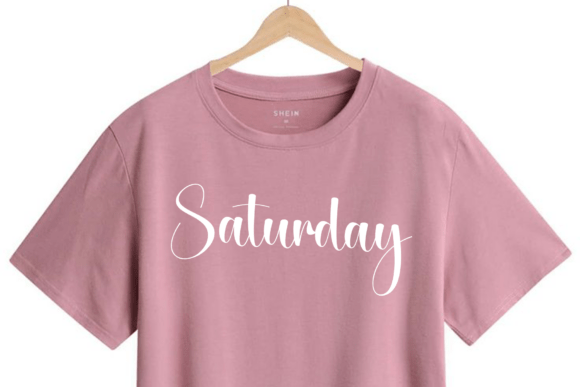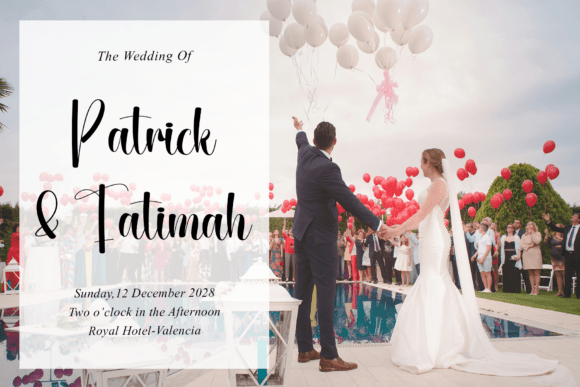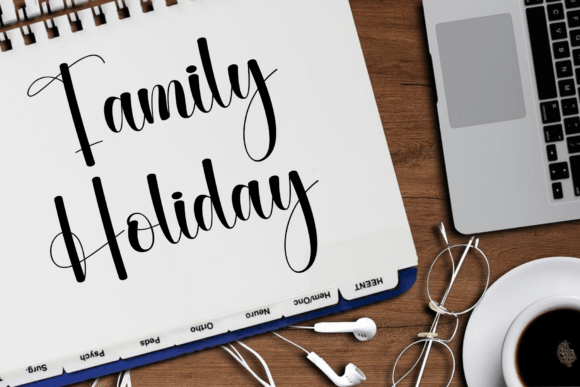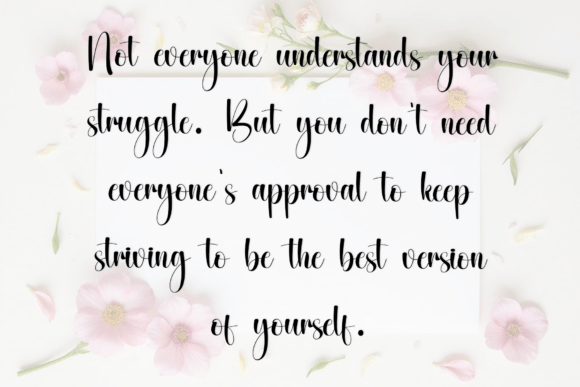
Unleashing the Art of Modern Elegance
As a designer, there’s nothing quite like the thrill of bringing a concept to life. It’s the moment when words and ideas transform into a visual masterpiece that captures the essence of your vision. For me, that moment often starts with the perfect font – one that elevates the entire design and leaves a lasting impression. And that’s exactly what Brilliant Calligraph Font is designed to do.
This stunning “new style” handwritten script font is more than just a font – it’s an experience. With its fluid, signature-like motion and delicate balance of tall ascenders and sweeping loops, it creates a sophisticated visual flow that’s perfect for luxury branding, signature logos, and high-end editorial content. Whether you’re crafting a wedding invitation or a high-end brochure, Brilliant Calligraph Font brings an unmistakable touch of class to every word.
Brilliant Calligraph Font Key Features
- Font Family: Brilliant Calligraph
- Unique Characteristics: Elegant and refined calligraphic script, suitable for formal and decorative purposes, featuring subtle flair and connection between letters
Brilliant Calligraph Font Review
Overall, I think the Brilliant Calligraph Font is a solid choice for designers looking to add some flair to their projects. Here are some of the things that work well: ✨
- Beautiful, flowing script lines that evoke a sense of elegance and sophistication.
- Highly customizable with a range of options for adjusting font sizes, line widths, and spacing.
- Works well in both digital and print applications, making it a versatile choice for designers.
However, there are a few limitations to be aware of: ⚠️
- The font may not be suitable for very small text sizes, as the lines can become too thin and difficult to read.
- Some users have reported issues with font rendering on certain platforms or browsers.
- The font may not be as bold or dramatic as some other calligraphic fonts on the market.
Overall, I think the Brilliant Calligraph Font is a great choice for designers who want to add a touch of sophistication to their projects. While it may not be perfect, it’s a solid option that’s worth considering.
Getting the Most Out of Brilliant Calligraph Font
To get the most out of Brilliant Calligraph Font, try combining it with other elegant fonts, using it for titles and headings, and adjusting the font size and style to create a visually appealing design.
Brilliant Calligraph Font is perfect for wedding invitations, birthday cards, and other special occasions where a touch of elegance is needed. It’s also great for creating beautiful quotes, posters, and social media graphics.